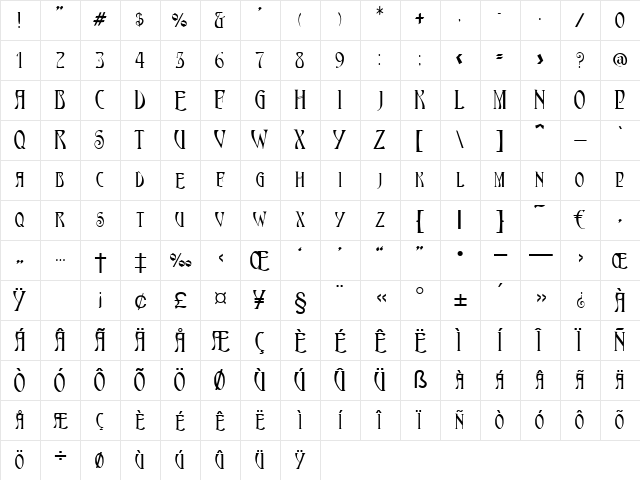
Tedeum Regular
Design Context for Tedeum
Tedeum is a composed and adaptable typeface that performs quietly and consistently across a wide range of design contexts.
Pro Tip: Use Tedeum in both headline and body roles to test its range before committing to a single application.